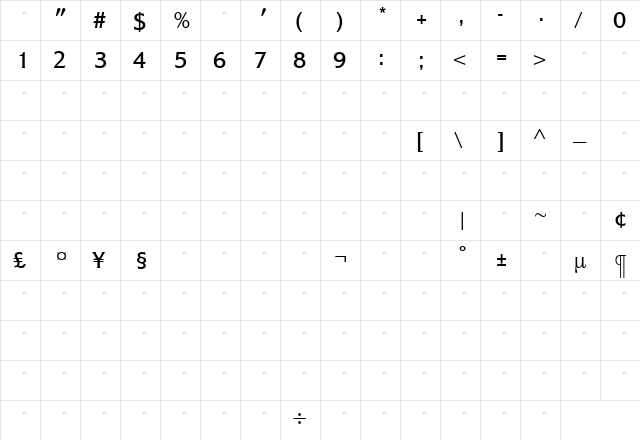
AlexonMediumTab Regular
| Foundry | Copr. Red Rooster Typefounders |
Design Context for AlexonMediumTab Typeface
AlexonMediumTab takes a measured approach to typography — its balanced proportions and neutral character make it a reliable workhorse for both digital and print work.